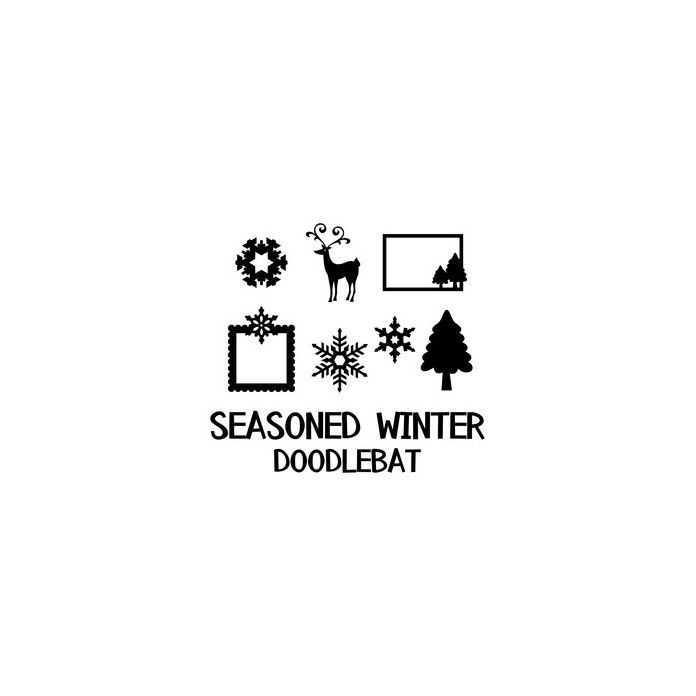
This winter themed doodlebat font is perfect for Holiday Greetings, scrap booking, cutting and more! For more fun fonts like this please visit: /lettering/doodlebats-c1c22